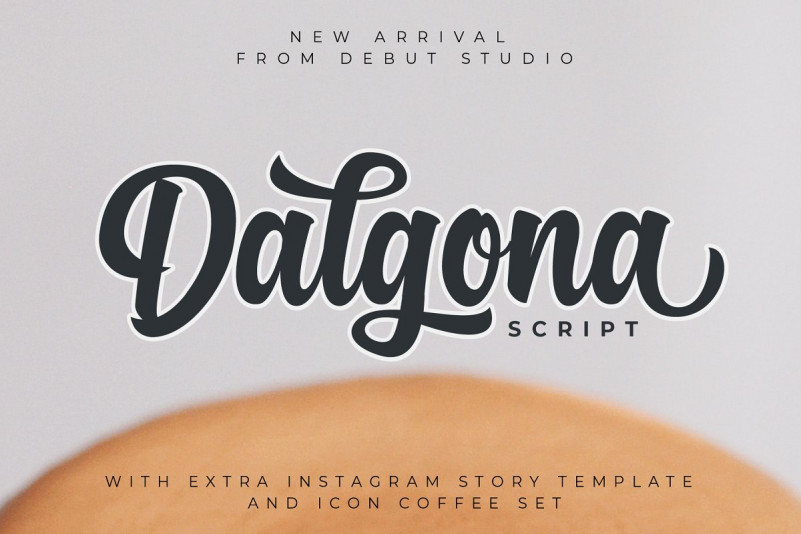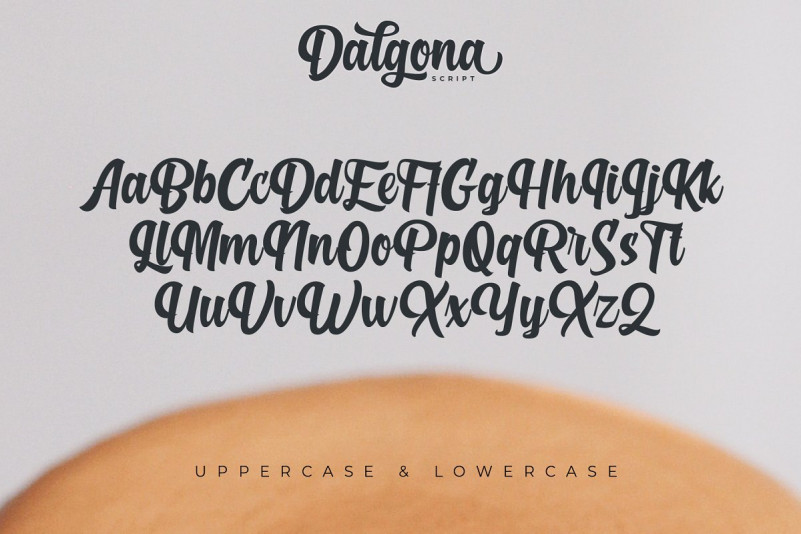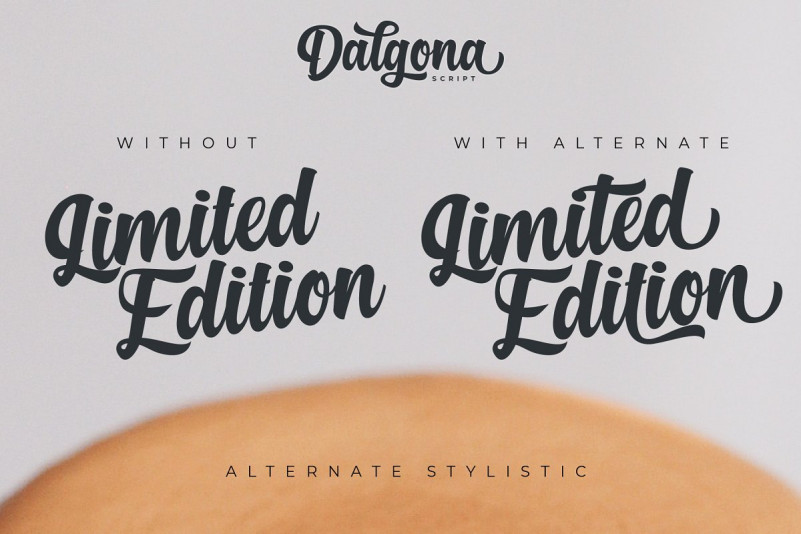
Dalgona Script Font
Dalgona Script is made to meet your design needs related to coffee, beverage and other food designs. with the opentype feature, makes it easy for you to customize your design with the Dalgona script font, so that it produces a design that matches your branding with handlettering style fonts. besides Dalgona script is also suitable for other design needs, such as logo design, branding, quotes, t-shirts, business cards, websites, and others.